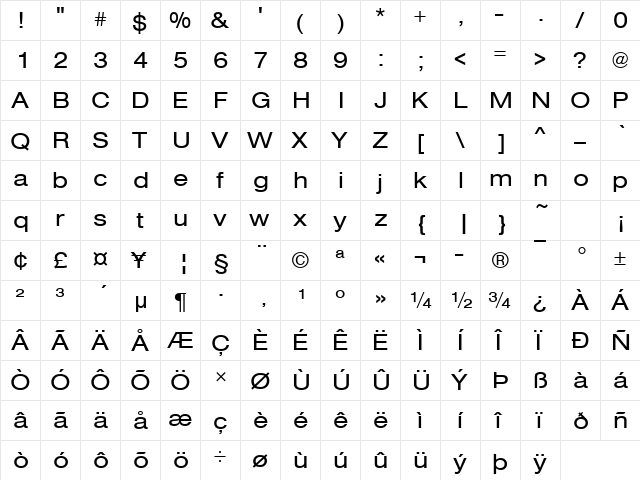
NimbusSanTExt Regular
Design Context for NimbusSanTExt Typeface
NimbusSanTExt offers clean, dependable letterforms without strong stylistic allegiance, making it a practical choice for designers who need flexibility.
Pro Tip: Pair NimbusSanTExt with a font of contrasting weight or personality to build a more expressive typographic hierarchy.